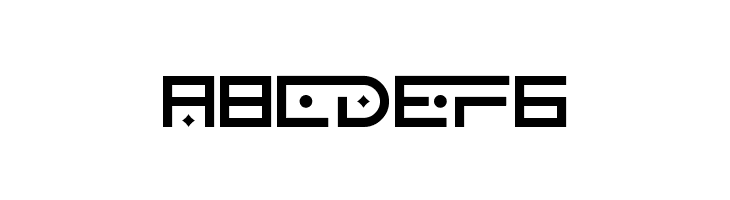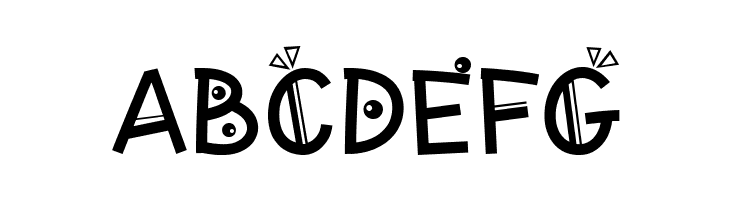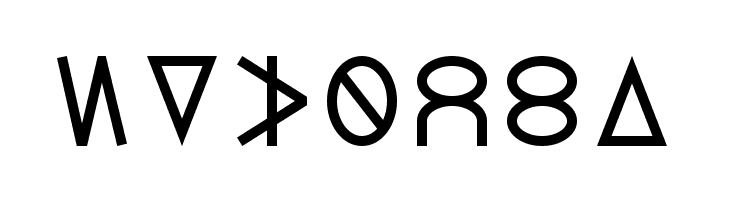
A futuristic, geometric font with bold, angular lines and decorative elements.
A playful and whimsical font with quirky embellishments and dynamic letterforms.
A cryptic, geometric font with a mysterious, cipher-like appearance.